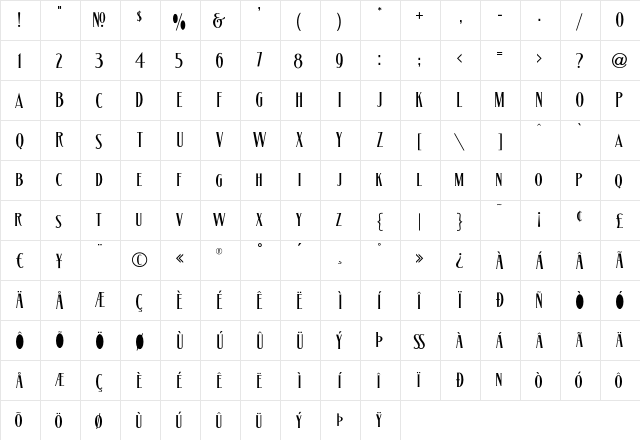
LHFMatthewsThin Regular
Design Context for LHFMatthewsThin Typeface
LHFMatthewsThin offers clean, dependable letterforms without strong stylistic allegiance, making it a practical choice for designers who need flexibility. The delicate stroke weight brings airiness and refinement to layouts.